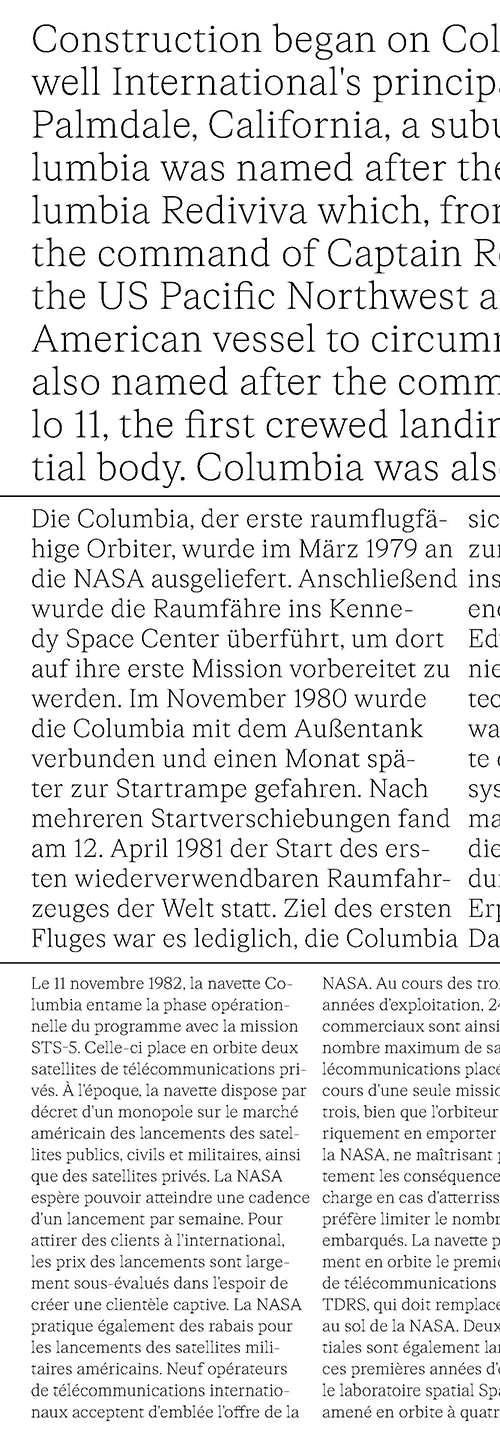
- FK Roman Standard is a neutral serif typeface, inspired by a newspaper typography giant Times New Roman. Following a release of FK Grotesk Neue earlier in 2020, FK Roman Standard is yet another addition to our friendly familiar-looking typefaces. The vertical metrics perfectly match FK Grotesk Neue, which makes the two utilitarian families ideal workhorse combination for almost any occasion. FK Roman Standard supports Latin Extended-A character set (i.e. Western European, Central European and Southeastern European languages) as well as Vietnamese language.